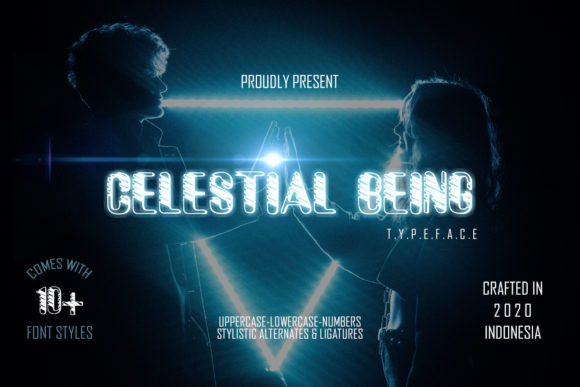
Step into the celestial realm of typography with Celestial Being Font, a captivating display font that will ignite your creativity and make your designs soar beyond the ordinary.
Crafted by the renowned Gblack Id, Celestial Being boasts an awe-inspiring collection of 13 diverse styles and a celestial ensemble of 150 swashes, each a shimmering star in its own right. Unleash your imagination and combine these celestial elements to bestow upon your designs an aura of unparalleled originality and distinction.
Indulge in the ethereal beauty of Celestial Being's playful spirit. Let its vibrant energy illuminate your crafting adventures, transforming them into captivating masterpieces. Whether you're crafting logos that demand attention, headlines that command a presence, or social media posts that radiate enchantment, Celestial Being is your celestial guide, leading you to typographic triumphs.
Designers, rejoice! Celestial Being is a font of infinite possibilities, a universe of creativity waiting to be explored. Its versatility extends beyond the boundaries of imagination, making it an indispensable tool for any design endeavor. From ethereal wedding invitations to enchanting branding materials, from captivating posters to celestial album covers, Celestial Being will elevate your creations to the realm of the extraordinary.
But wait, there's more to this cosmic font than meets the eye! Its meticulous craftsmanship ensures that every letter and swash is a work of art, a testament to the dedication of its creator. Each stroke, each curve, each embellishment has been carefully crafted to evoke a sense of wonder and inspire boundless creativity.
So, dear designers, embark on a typographic odyssey with Celestial Being Font. Let your imagination soar, your creativity dance, and your designs achieve celestial heights. For within this font lies the power to transform the ordinary into the extraordinary, the mundane into the magnificent.